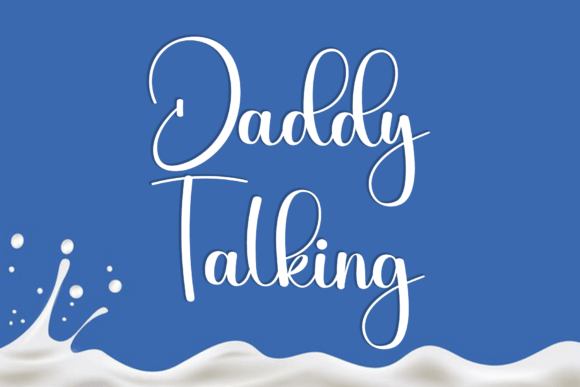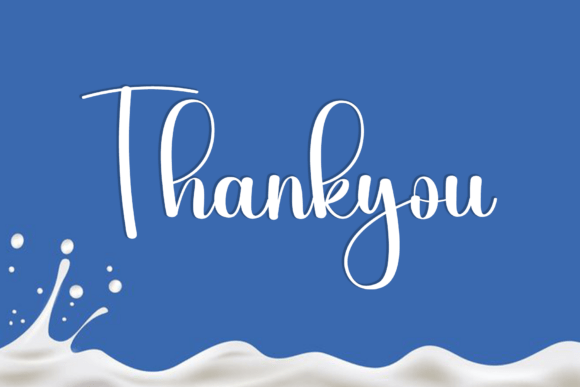
The Dairymilky Font: A Timeless Choice for Creative Designs
I’ll never forget the moment I stumbled upon the Dairymilky font while working on a branding project for a small business. I had spent hours searching for the perfect font, but nothing seemed quite right. That was until I saw Dairymilky – its lovely, handwritten curves and unique touch immediately caught my eye. I knew right then and there that it was the perfect fit for my project. In this article, I’ll share with you why Dairymilky is a great choice for designers, crafters, and creative hobbyists, and how you can make the most of its features.
An Honest Review of Dairymilky Font
What I Love About Dairymilky ✨
- ✅ Unique and beautiful touch: Every letter has a special charm that sets it apart from other fonts.
- ✅ Timeless design: Dairymilky’s classic look makes it suitable for a wide range of design projects, from modern to vintage.
- ✅ Easy to read: Despite its handwritten nature, Dairymilky is surprisingly legible, even at smaller font sizes.
- ✅ Versatile: This font is perfect for creating eye-catching logos, branding materials, quotes, and more.
While Dairymilky is an excellent font, it’s not without its limitations. For instance:
- ⚠️ Limited availability of extended language support: If you need to work with languages that require special characters, you might find Dairymilky’s support limited.
- ⚠️ Not ideal for body text: Due to its decorative nature, Dairymilky is best used for headings, titles, and short paragraphs rather than long blocks of text.
The Story Behind Dairymilky Font
Dairymilky was designed with the intention of creating a timeless, handwritten font that would bring a touch of warmth and personality to designs. The font’s creator was inspired by traditional handwritten scripts and aimed to capture their essence in a modern, digital format.
| Author | Sansana |
Q: What is Dairymilky font best used for?
A: Dairymilky is best used for creating eye-catching logos, branding materials, quotes, and other creative projects that require a personal touch.